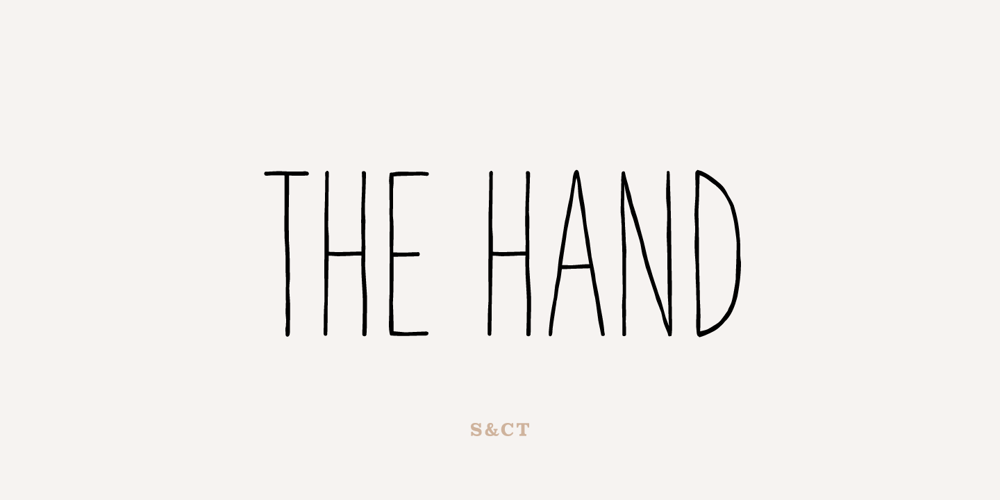
The Hand Font Family was designed by Julien Saurin, Fanny Coulez and published by S&C Type. The Hand contains 7 styles and family package options. The Hand is a handwritten font designed by Fanny Coulez and Julien Saurin in Paris. We wanted to create the most generic, readable and finely balanced handwritten font, to work well in every kind of design. We also designed two playful dotted weights to add a fancy touch in your graphic design. We hope you will enjoy our work ๐ You could follow us on our Instagram: instagram.com/sc.type Merci beaucoup!